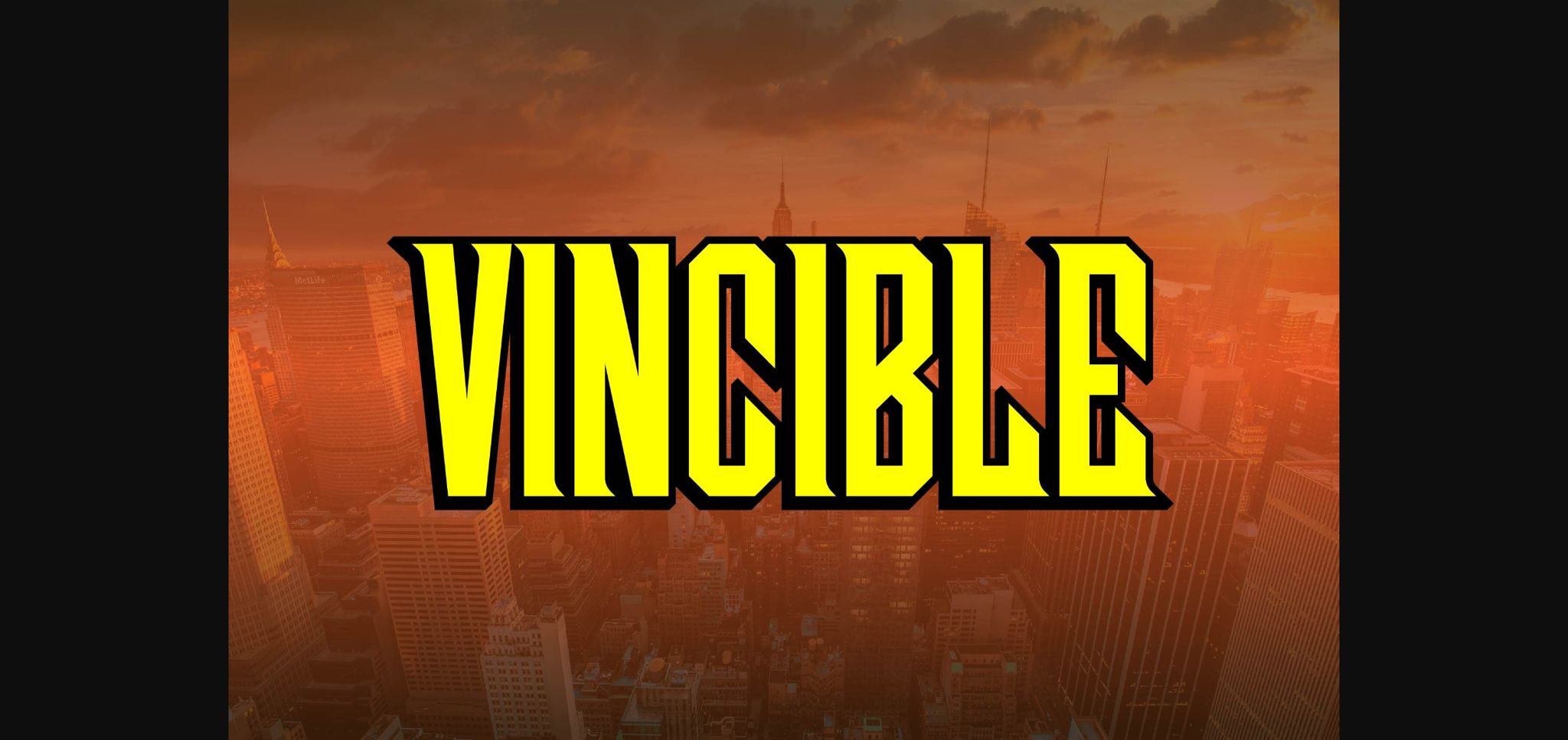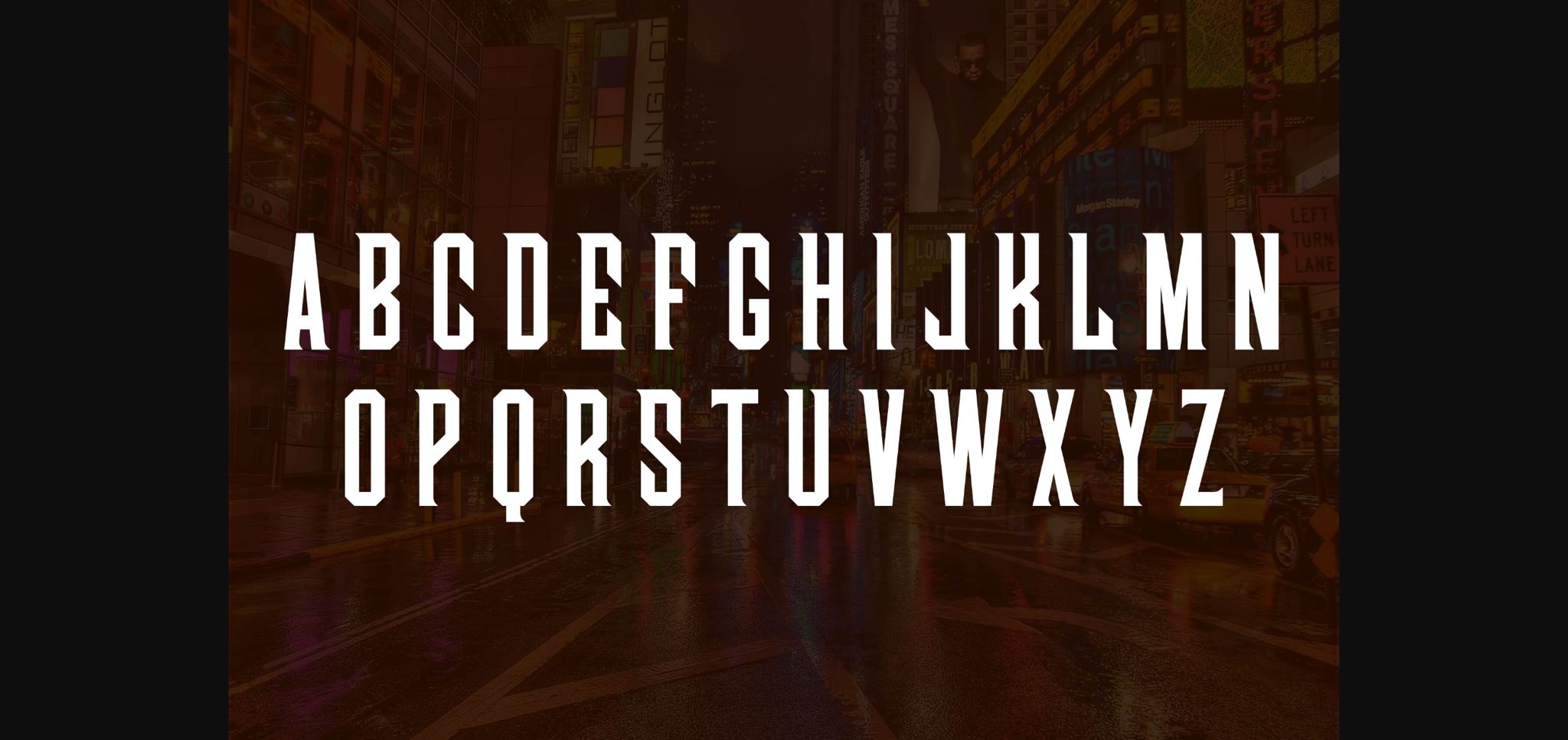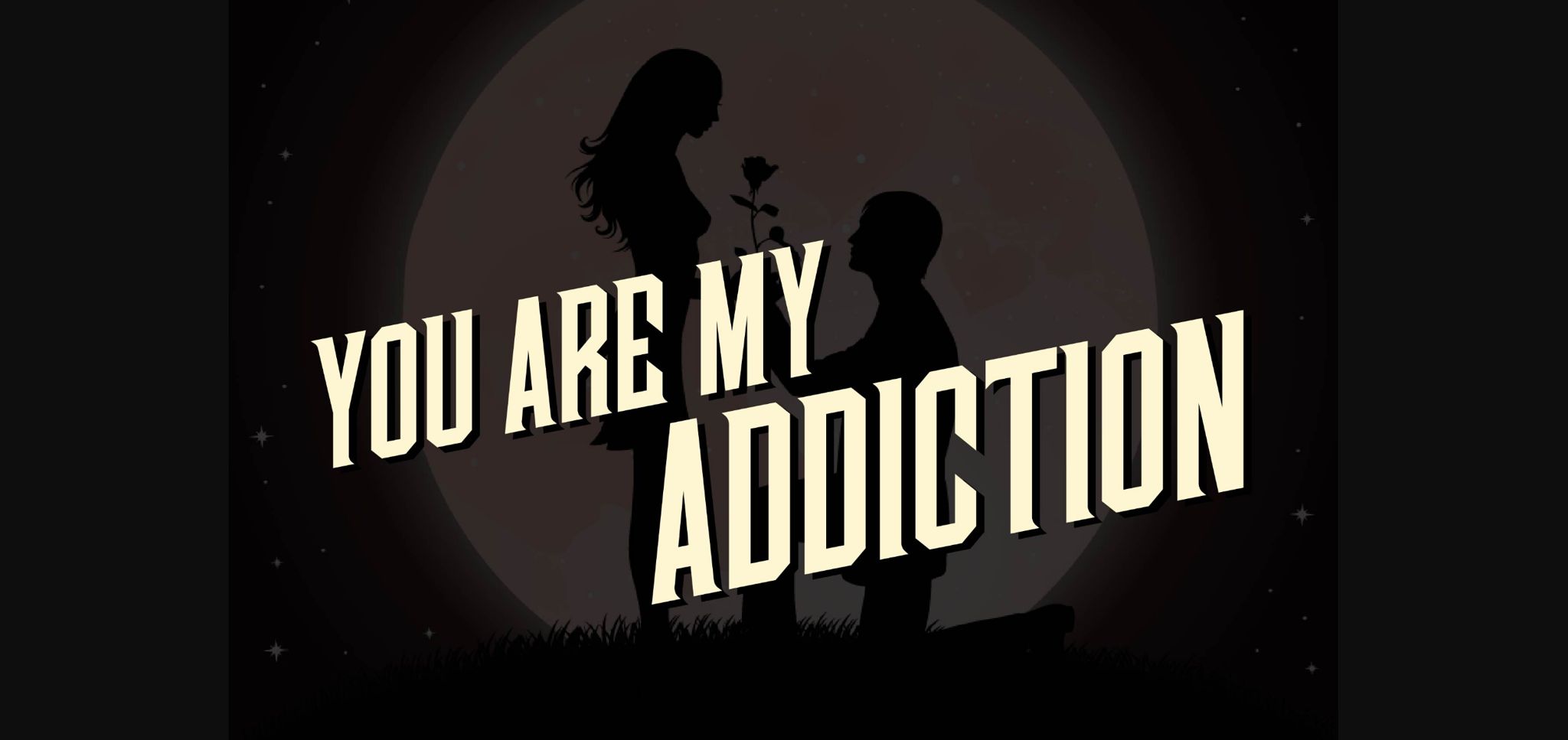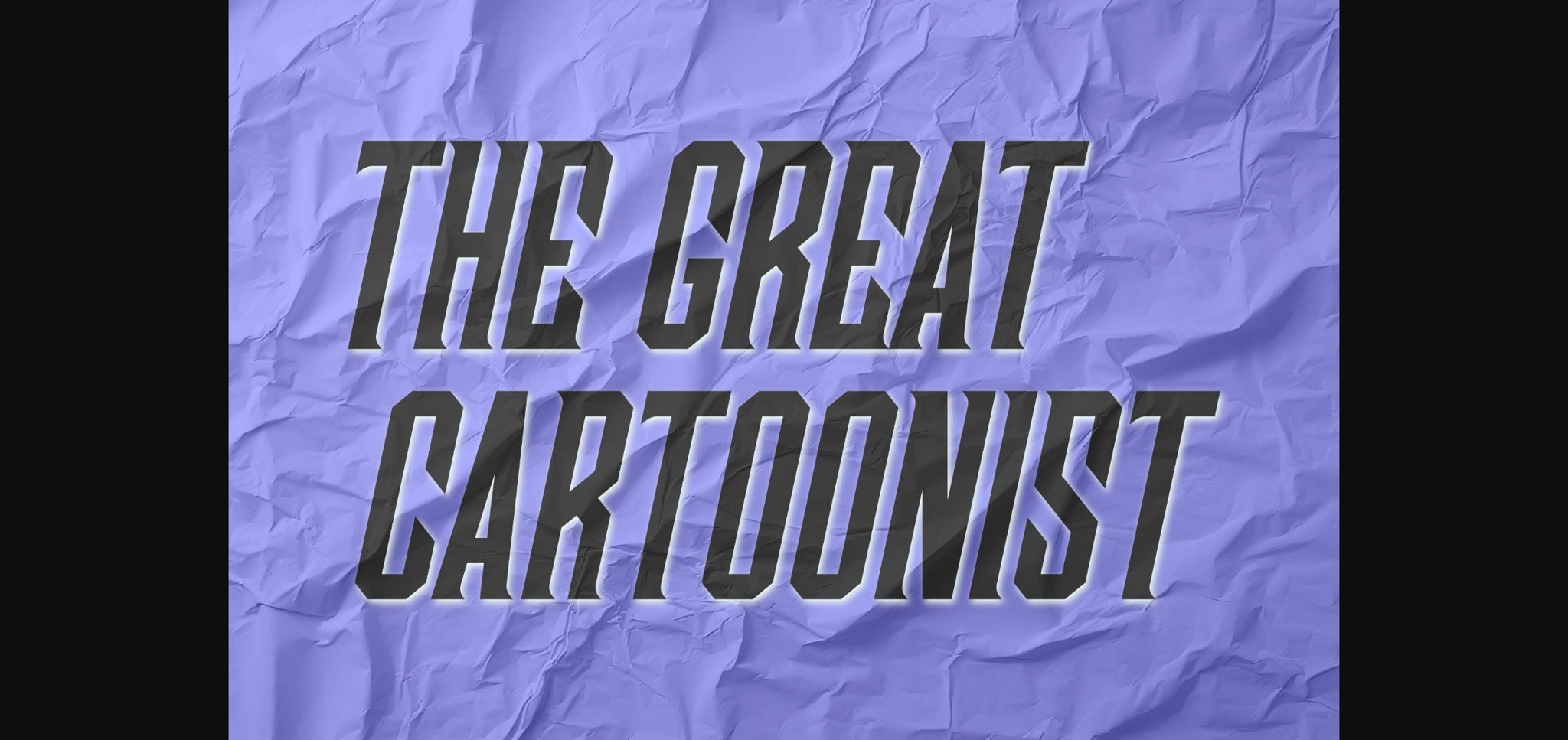
About Vincible Font
Introducing Vincible: a Techno-crafted Stylish sans serif Font radiating Cartoon Quality. Perfect for Movie, Cartoon, Game, Apps, and T-shirt designs, Vincible is a versatile creative asset. Featuring 96 meticulously crafted glyphs and 95 characters, it amplifies visual storytelling with its dynamic flair, making it the ultimate choice for captivating and engaging typography across diverse design projects